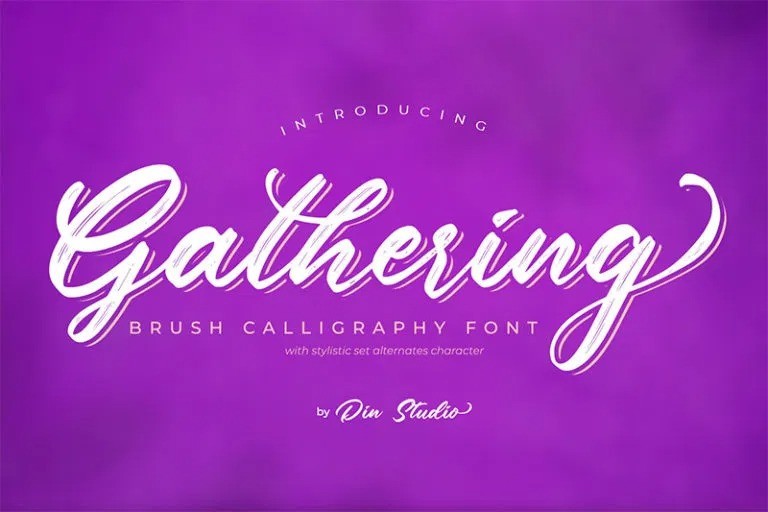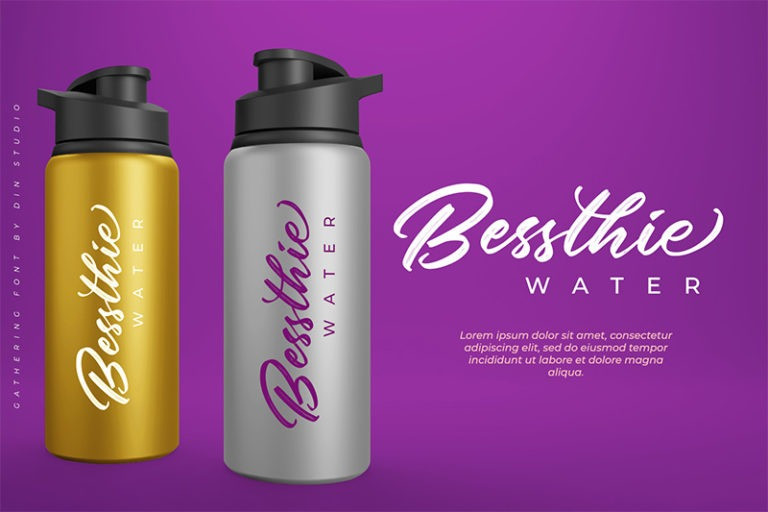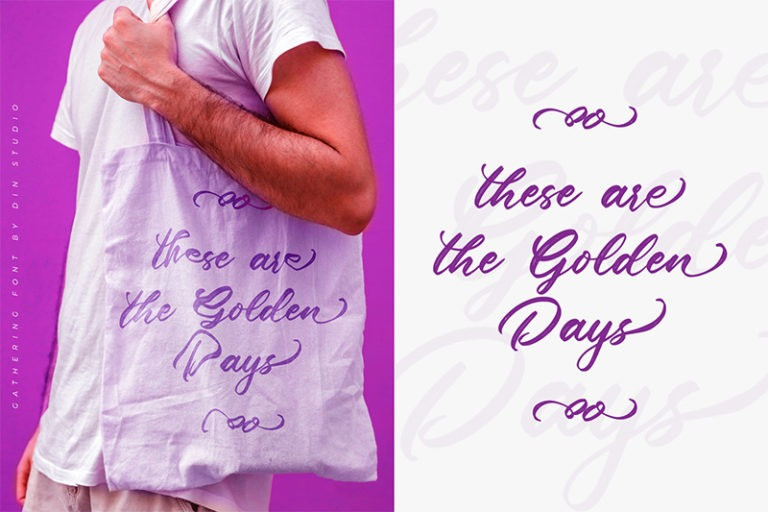
Gathering Brush Font
Gathering is a classy script font. Combined with brush textured calligraphy will make your design project more powerful. Made for any professional project branding. It is the best for logos, branding and quotes. Every letter has a unique and beautiful touch.